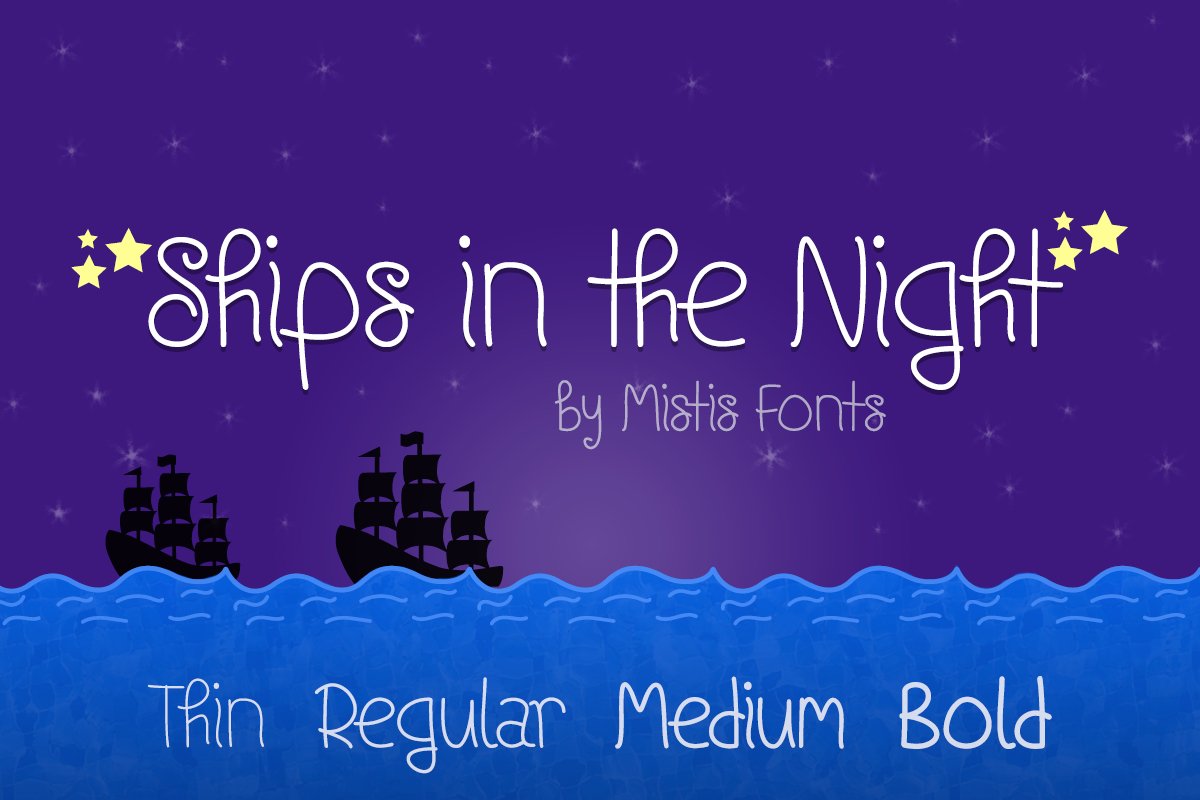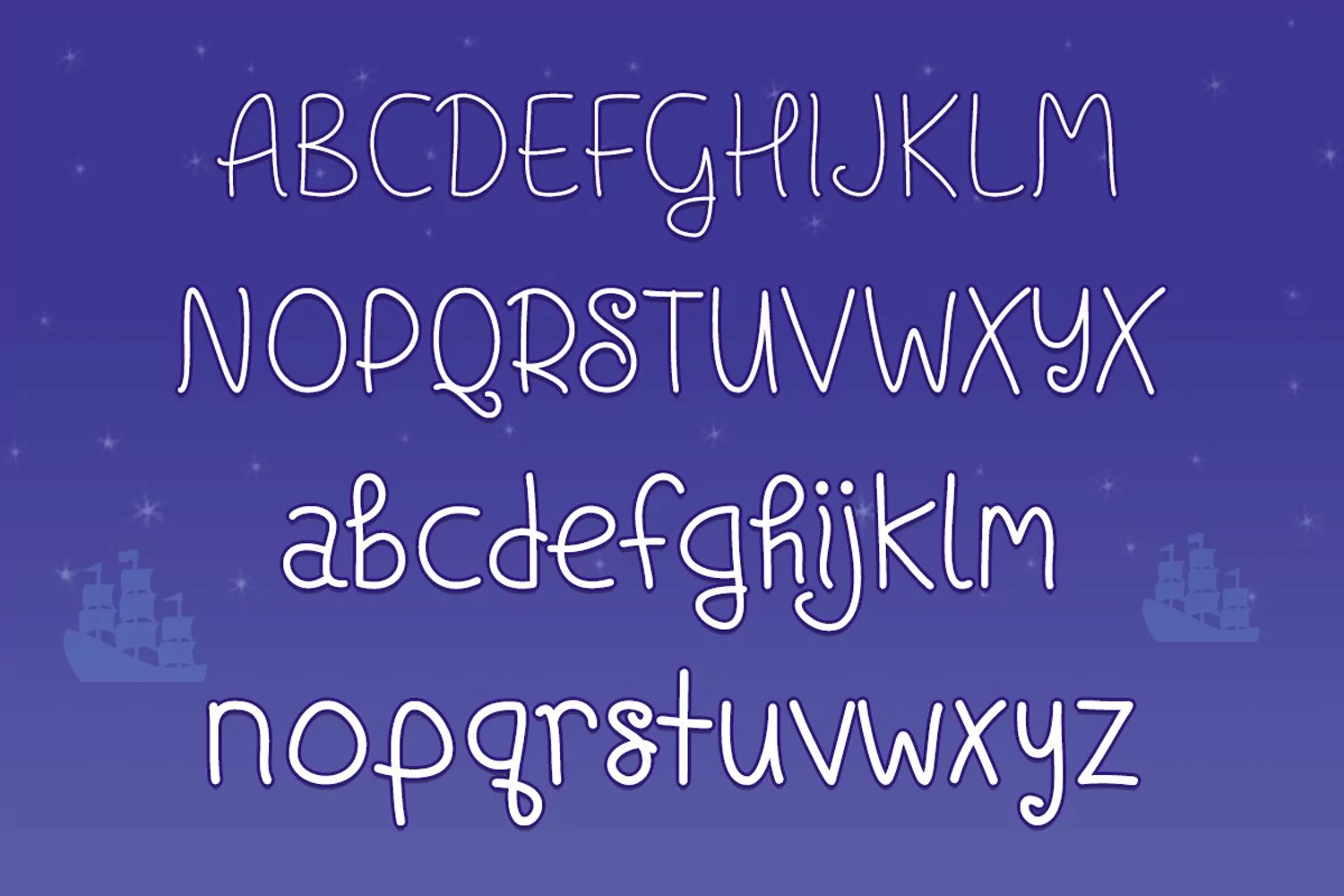
Ships in the Night
Ships in the Night is a fun and whimsical typeface originally created in 2013. In 2020, it has been updated with improved character and language support, fun ligatures, and now comes in 4 different weights (thin, regular, medium and bold). With it's organic and individual letter forms, it will add a ton of personality and flair to your projects!